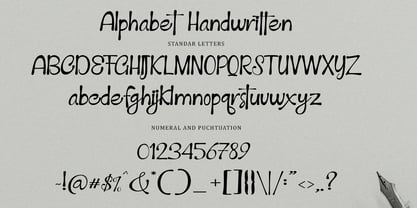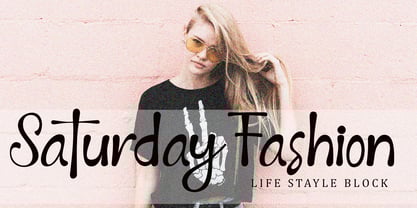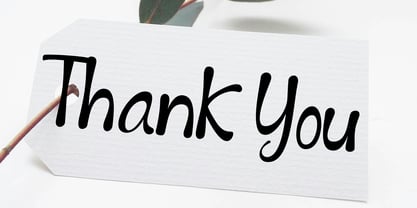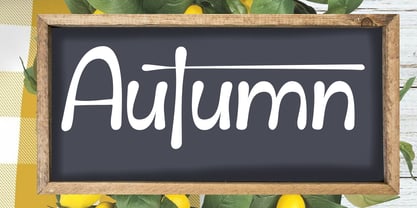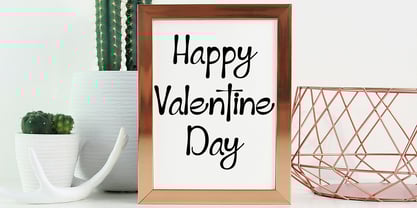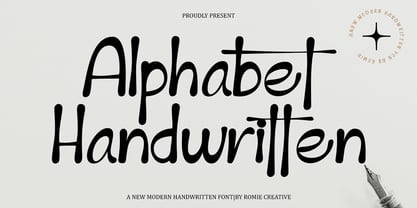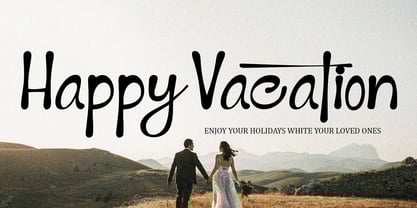
Alphabet Handwritten
by Romie Creative
The Alphabet Handwritten Font Family was designed by Romi Rahmadi and published by Romie Creative. Alphabet Handwritten contains 1 styles. More about this family
Alphabet Handwritten Font is a modern Handwritten font.
It's perfect for branding, wedding invitations, photography, Neon Sign, bloggers, logos, greeting cards, Logo, Quotes and more.
Designers: Romi Rahmadi
Foundry: Romie Creative